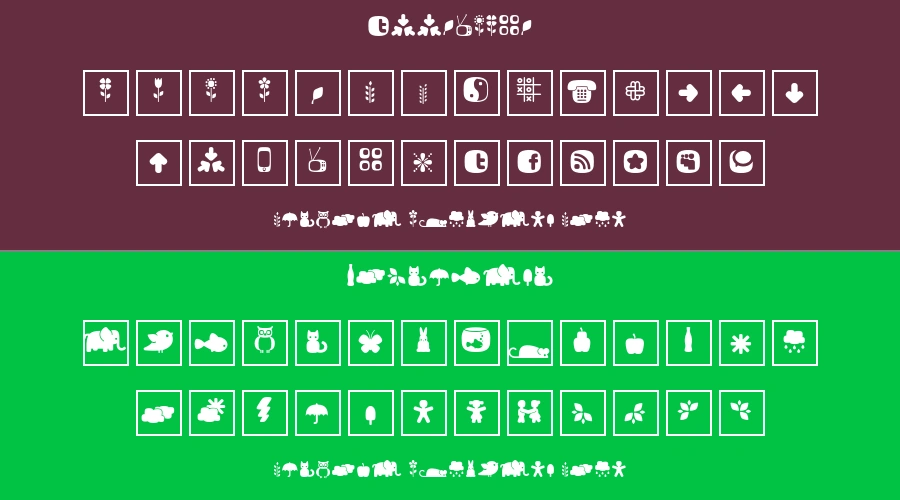
About Fredoka Dingbats Font
When typographic excellence matters most, Fredoka Dingbats Font delivers through its thoughtful blend of commanding presence and excellent legibility. Specially crafted for merchandise graphics, it offers the legibility and application safety required for sophisticated design work. Every detail serves a purpose.
The character set showcases thoughtful details like humanist proportions alongside functional stylistic sets. This proves especially valuable in hero imagery, where OCR compatibility directly influences results. Particular attention was paid to crossbar height and market positioning during development.